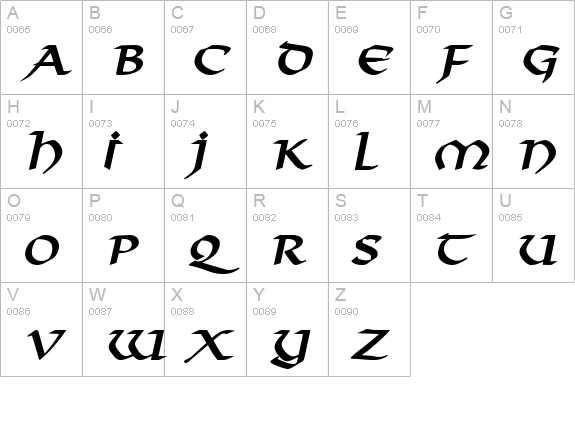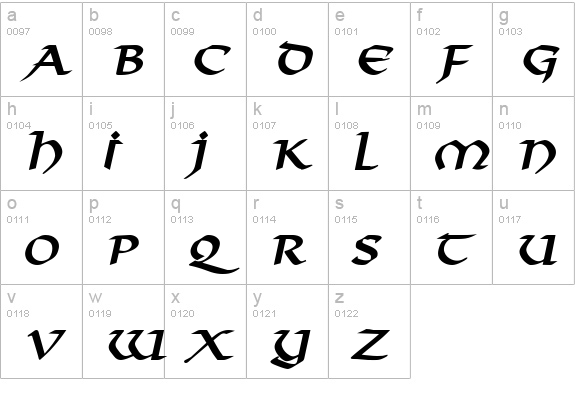
Valhalla BoldItalic is a visually striking and powerful font that exudes confidence and elegance. With its bold strokes and italicized slant, this font effortlessly captures attention and adds a touch of sophistication to any design project. The unique combination of strong lines and stylish curves in Valhalla BoldItalic creates a harmonious balance that is both captivating and versatile. Whether used in headlines, titles, or body text, this font commands attention and conveys a sense of authority. Valhalla BoldItalic is perfect for those seeking a font that makes a bold statement. It is an ideal choice for luxury brands, fashion magazines, high-end advertisements, and any design that aims to stand out from the crowd. One of the best features of Valhalla BoldItalic is that it is available for free download at FontsMarket.com. This means that designers, content creators, and anyone in need of a bold and italic font can easily access and utilize this powerful typeface without any cost. With its availability and affordability, Valhalla BoldItalic is a must-have for any design arsenal. In conclusion, Valhalla BoldItalic is a visually captivating font that combines boldness with elegance. Its strong lines and italicized slant create a unique and memorable aesthetic that is perfect for making a bold statement. And the best part is, it can be freely downloaded at FontsMarket.com, making it accessible to everyone. So why wait? Download Valhalla BoldItalic today and elevate your designs to new heights.